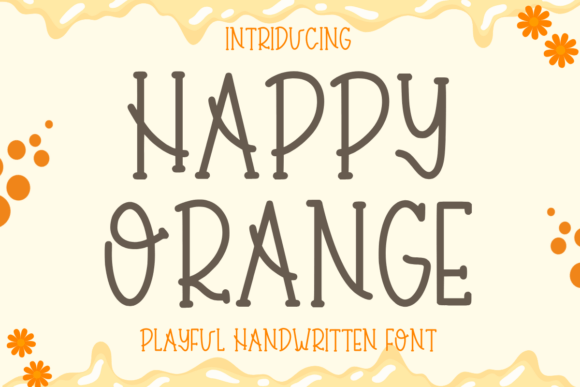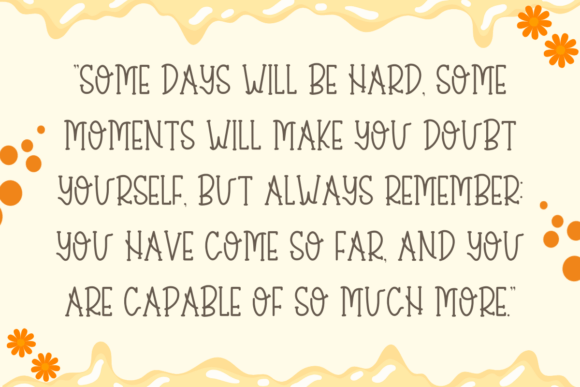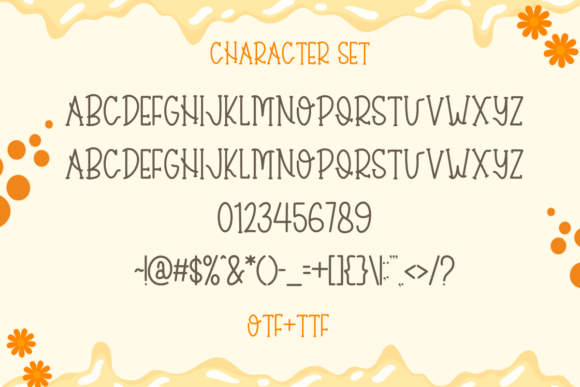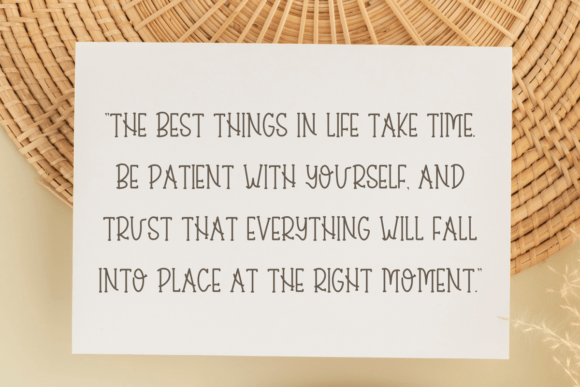
Happy Orange Font: A Cute Handwritten Font for Cricut & Crafts
About the Happy Orange Font
Unleash your creativity with Happy Orange Font, a versatile font perfect for a wide range of applications. Happy Orange is a fun and playful handwritten font that’s perfect for crafts, planners, KDP, stickers, greeting cards, and more. With its cute and friendly style, it works great for Cricut, sublimation, and creative DIY projects. Ideal for crafters, designers, and makers!
Its friendly, informal style makes it ideal for branding projects targeting a young, playful audience, particularly in children’s products or craft-related businesses. Happy Orange excels in headlines, short text blocks on packaging, and social media graphics. Avoid using it for body text or long paragraphs; its informal nature isn’t suitable for lengthy reads.
For a balanced design, pair Happy Orange with a clean sans-serif like Open Sans for body copy or a more geometric sans-serif like Montserrat for a modern feel. A simple serif font such as Lora can add a touch of sophistication if needed, creating contrast without overwhelming the playful energy of Happy Orange.
The font’s core personality is undeniably cheerful and approachable. Its slightly irregular letterforms communicate warmth and friendliness, making it an excellent choice for projects where approachability is key.